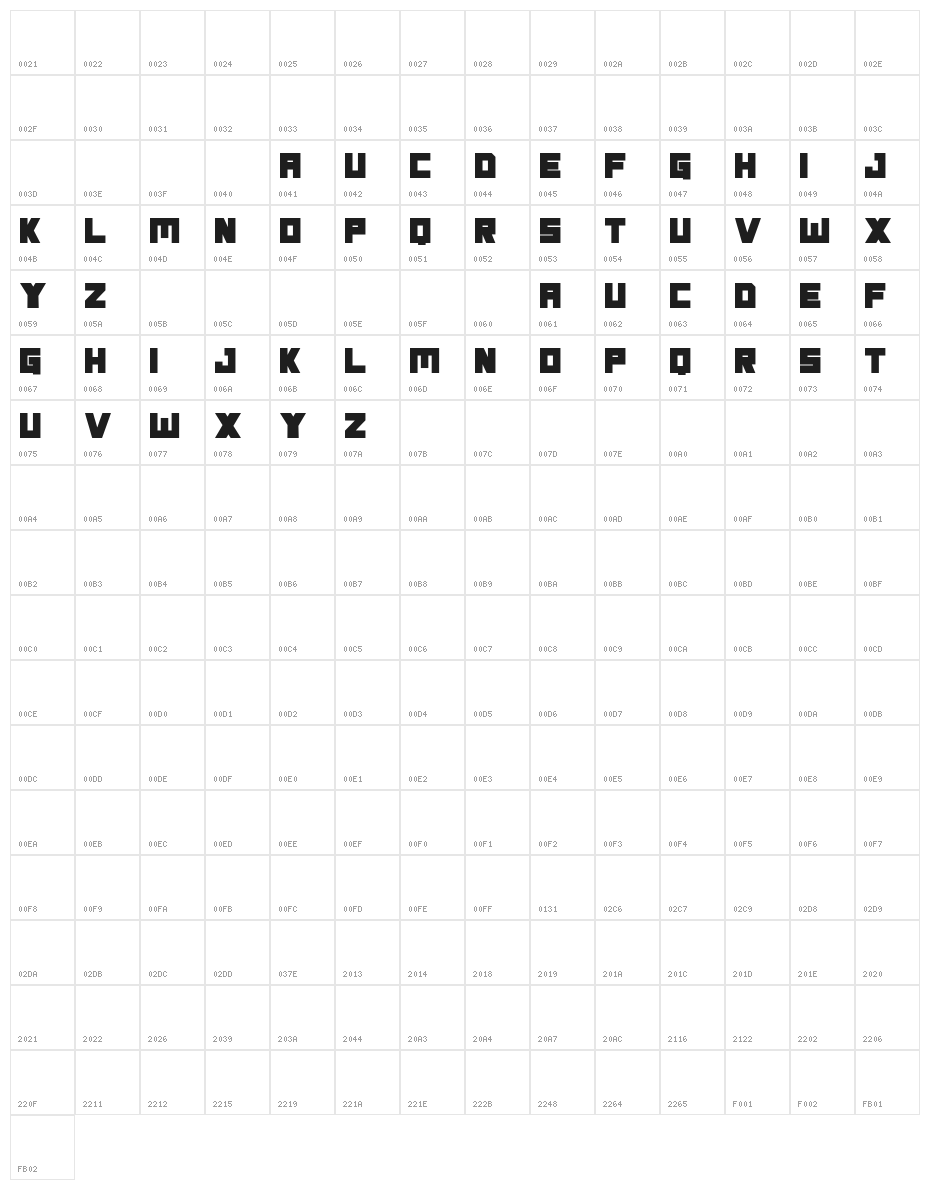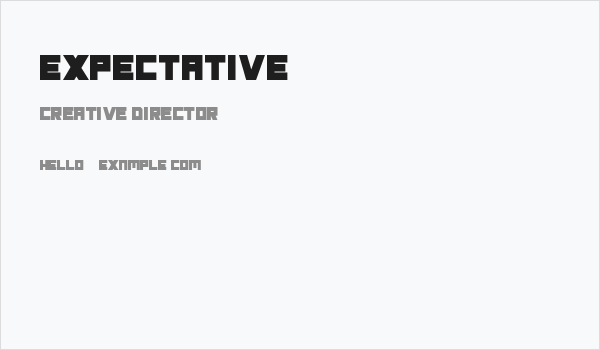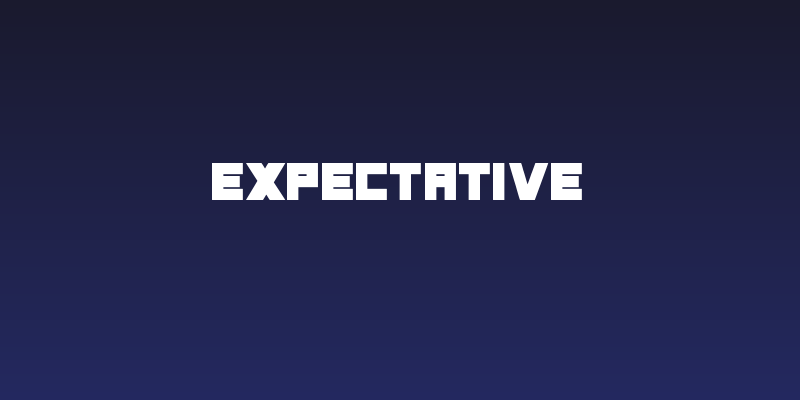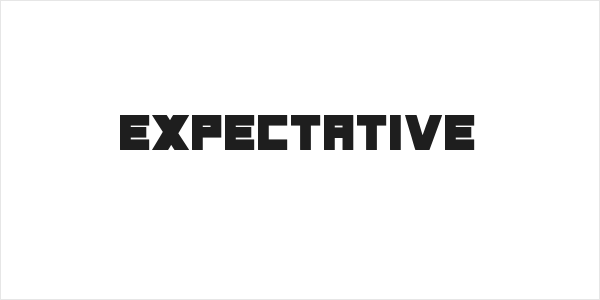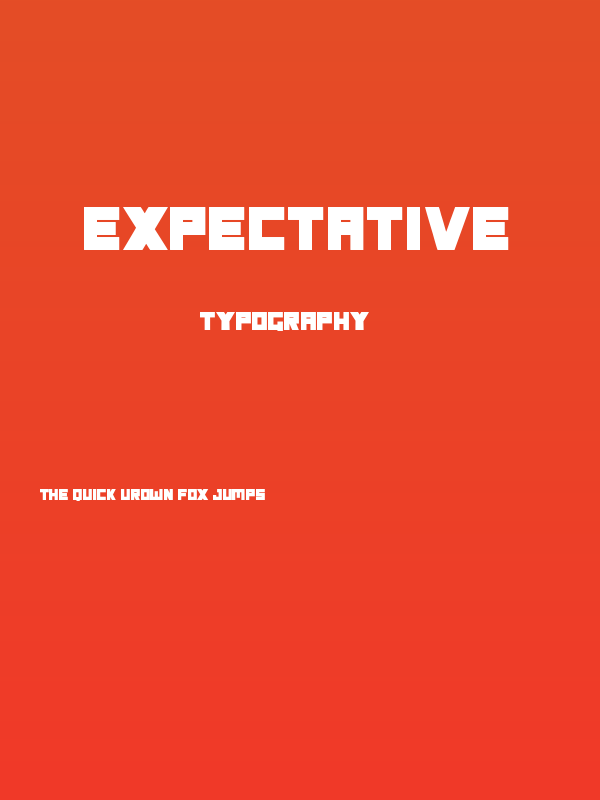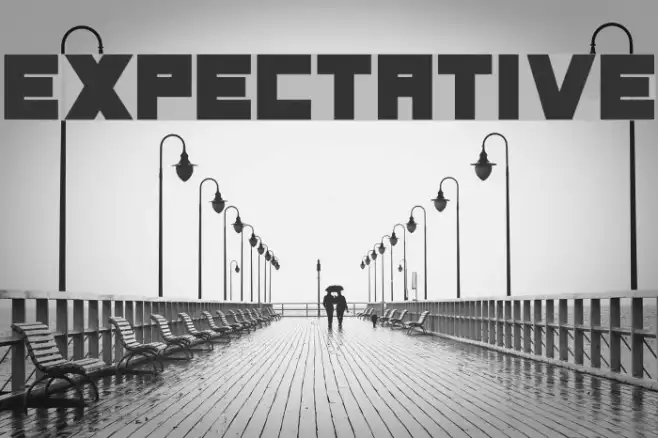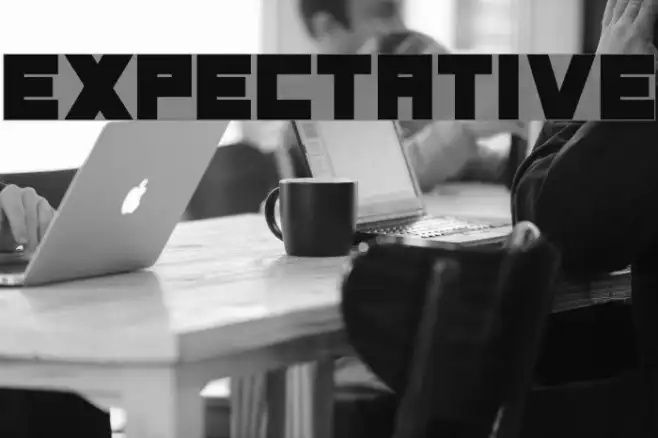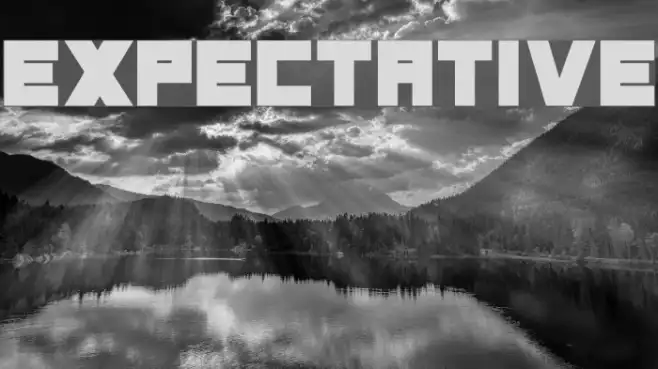
Expectative Font
Expectative Description
This font features a bold, geometric style with strong, angular lines and a blocky appearance. The characters are uniformly wide, giving it a monospaced feel, though it is not strictly monospaced. The uppercase and lowercase letters share a similar structure, enhancing its cohesive look. The font's design is reminiscent of digital or futuristic themes, making it suitable for projects that require a modern and edgy aesthetic. Its high contrast and thick strokes ensure excellent readability, even at smaller sizes. The font's distinct style makes it ideal for attention-grabbing headlines and logos.
EXPECTATIVE UPPERCASE
EXPECTATIVE LOWERCASE
EXPECTATIVE OTHER CHARS
| Proposed Projects | Ideal for digital designs, tech-related branding, video game titles, and modern posters. |